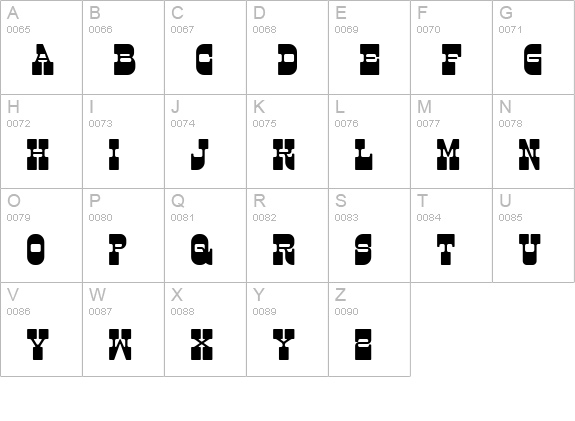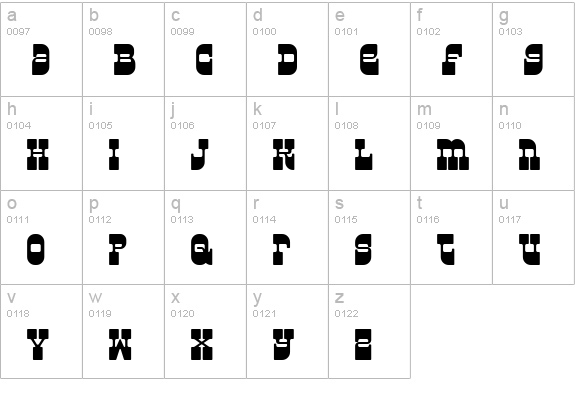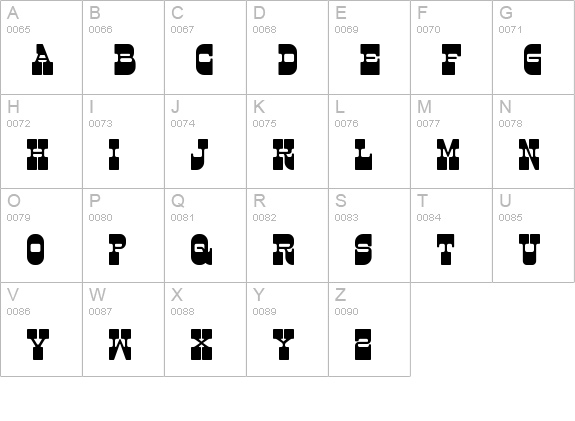
Superfly Font Details
Superfly font is a modern and stylish typeface that exudes a sense of energy and sophistication. Its sleek lines and sharp angles make it perfect for projects that require a touch of edginess and flair. The bold and eye-catching design of Superfly font is sure to make your text stand out and grab attention. What makes Superfly font even more appealing is that it is available for free download at FontsMarket.com. This means that you can easily access this versatile font and use it in your personal or commercial projects without any cost. With its versatility and modern appeal, Superfly font is a must-have in any designer's toolkit.